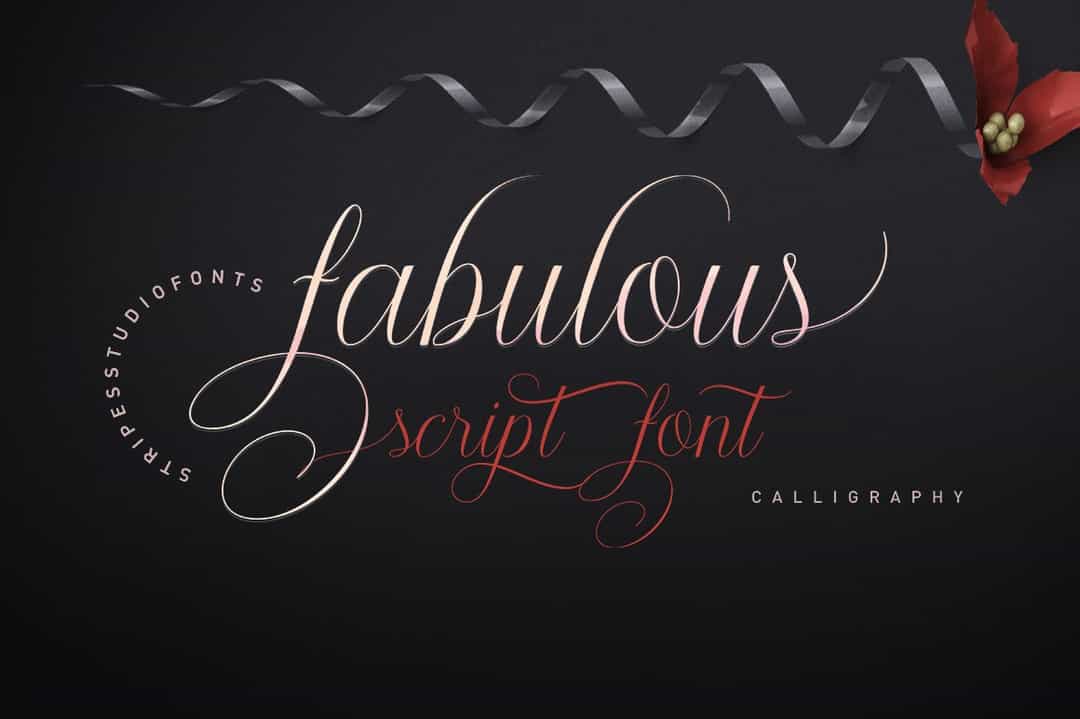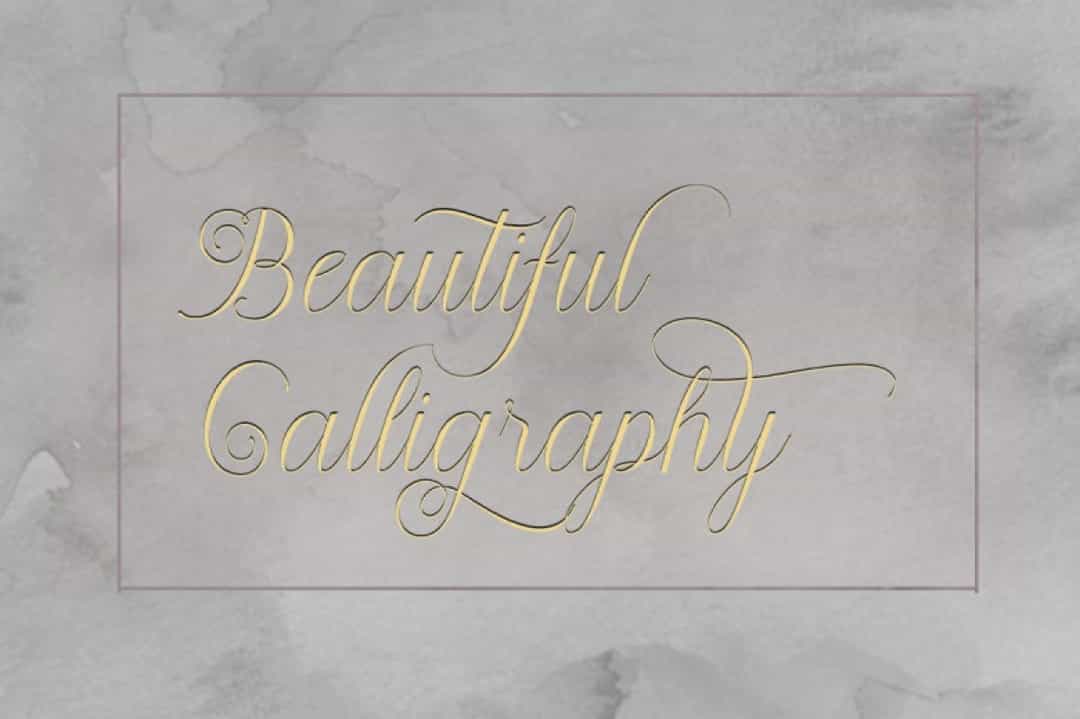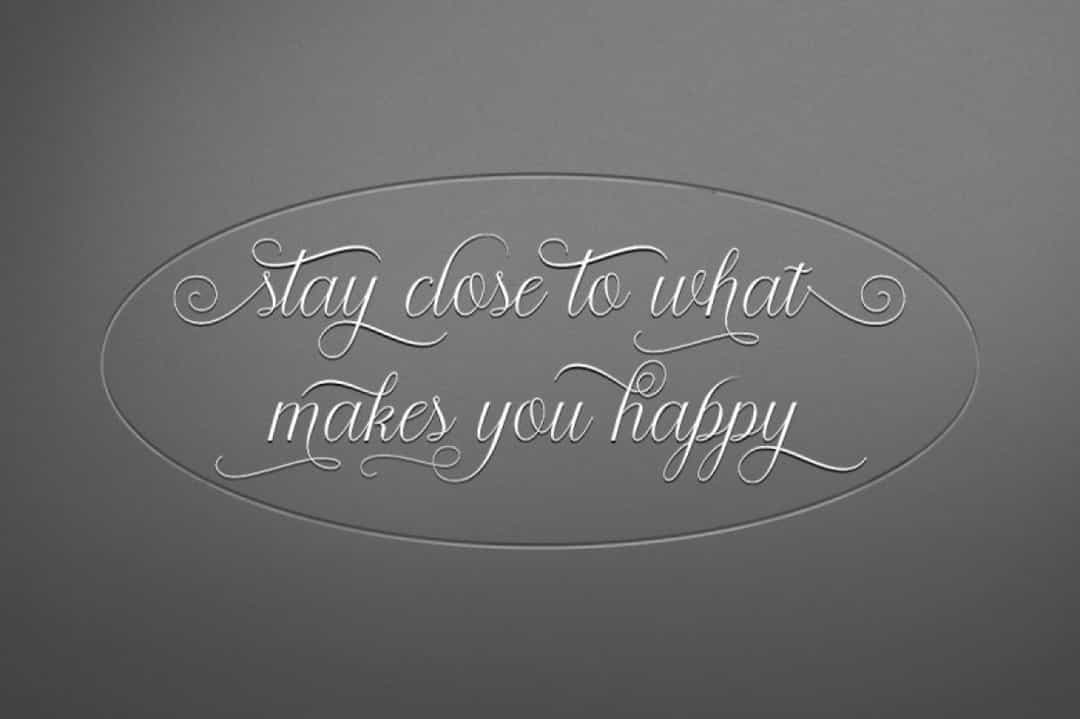
Fabulous Script Font is a modern calligraphy script typeface. It’s easy to use and has a great readability. Perfect for branding designs! Perfectly fit for branding, logo, wedding things, greeting cards, fashion, lookbook, marketing promotion, anytime you want to look fancy elegant but still casual.